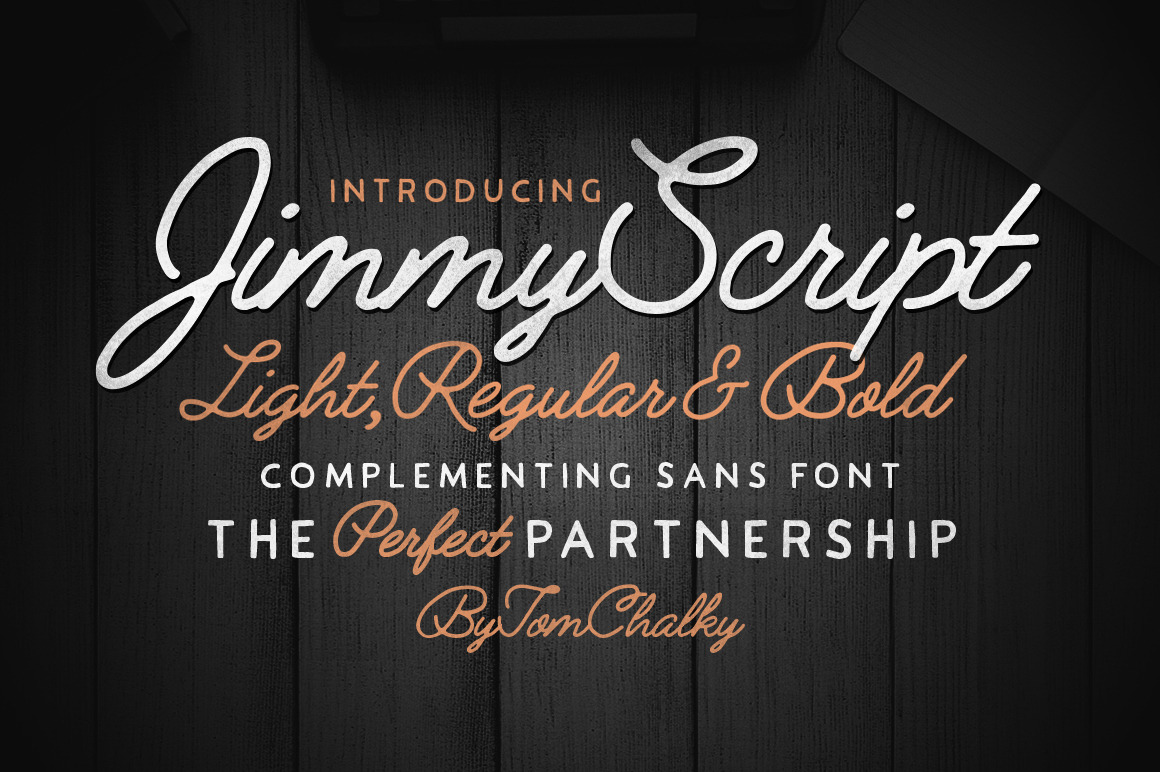
Jimmy Font Duo (5 Fonts) + Extras!
Hey guys! I'm pleased to show you my latest font family Jimmy. It includes a handcrafted script font (Light, Regular and Bold weights included!) and a perfectly complementing all capitals Sans (Regular and Bold weights included!).
The styles of both Jimmy Script and Jimmy Sans were inspired by the modern vintage trend that is sweeping the design industry. Whilst the Script and Sans can be used effectively as separate fonts, they truly work their magic when combined!
- Jimmy Script Font Family (Light, Regular and Bold!)
- Jimmy Sans Font Family (Regular and Bold!)
- Sans = All Capitals